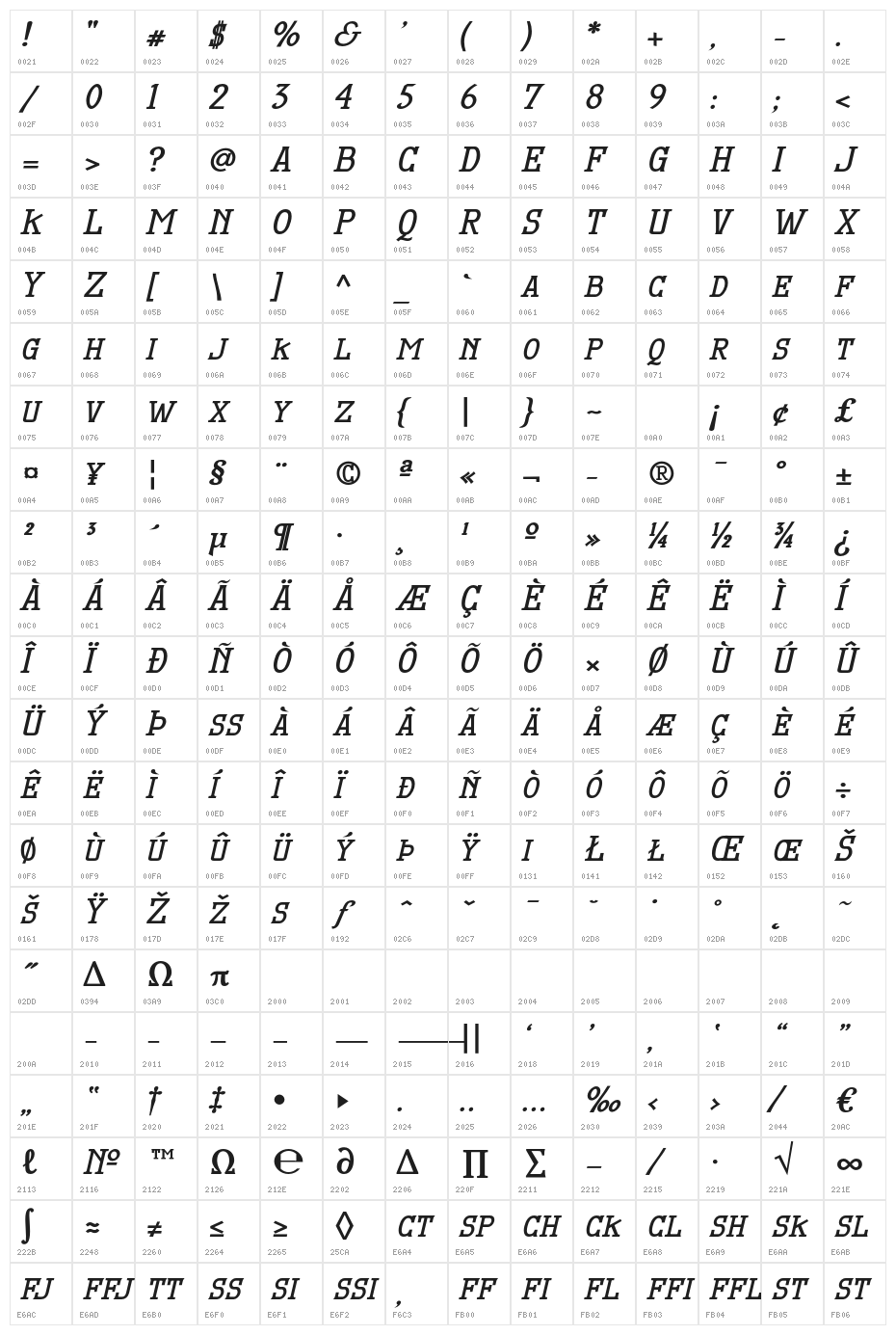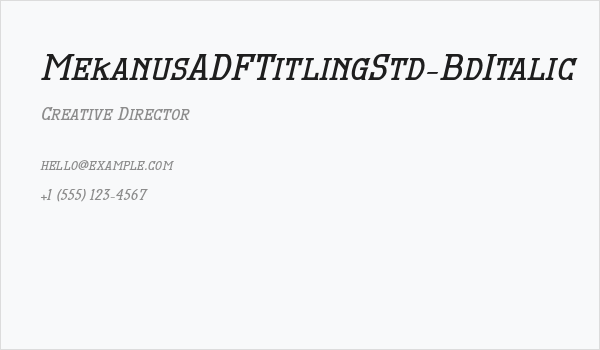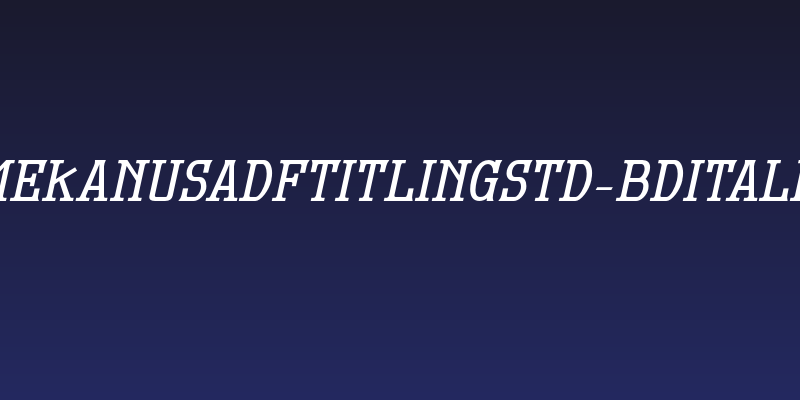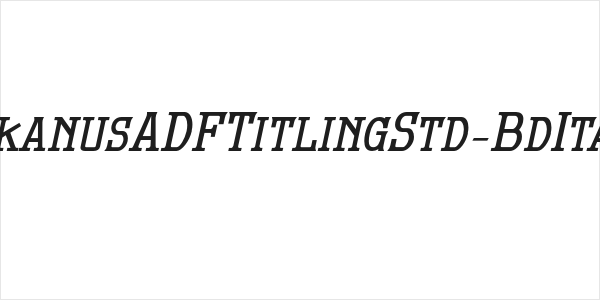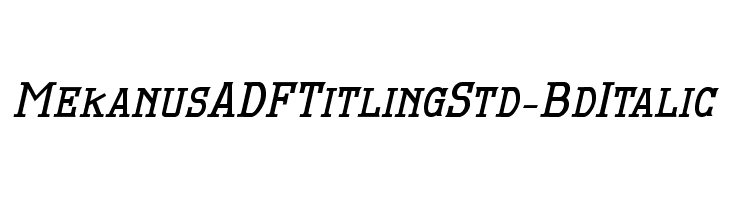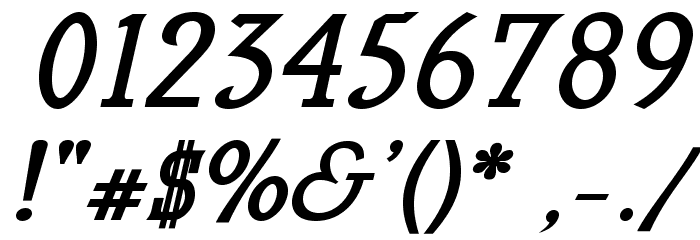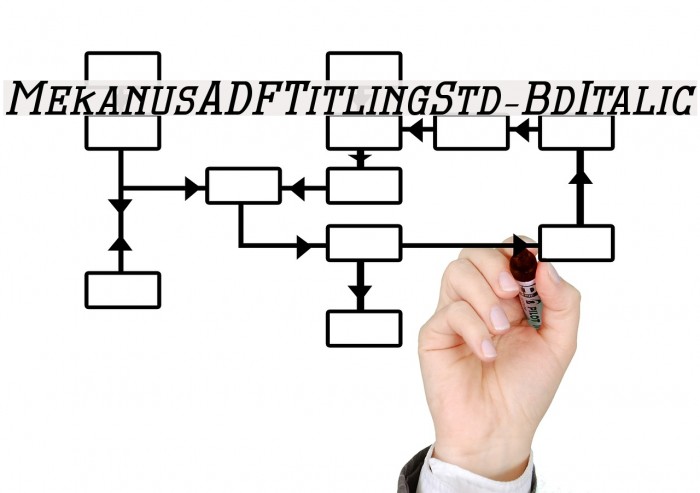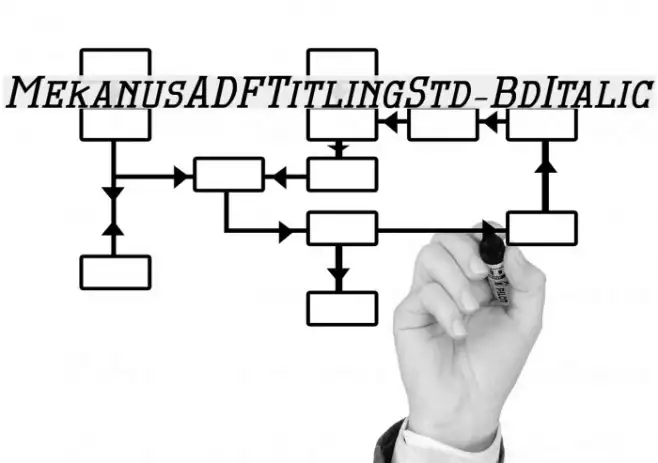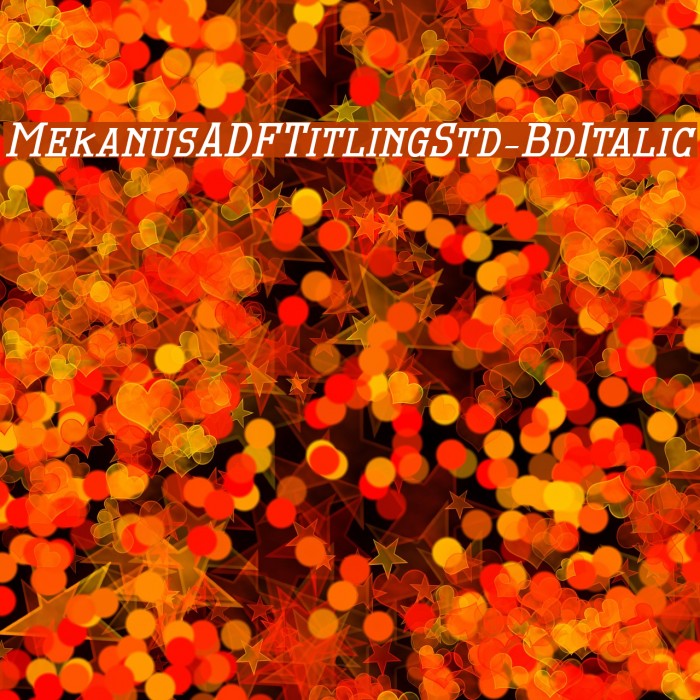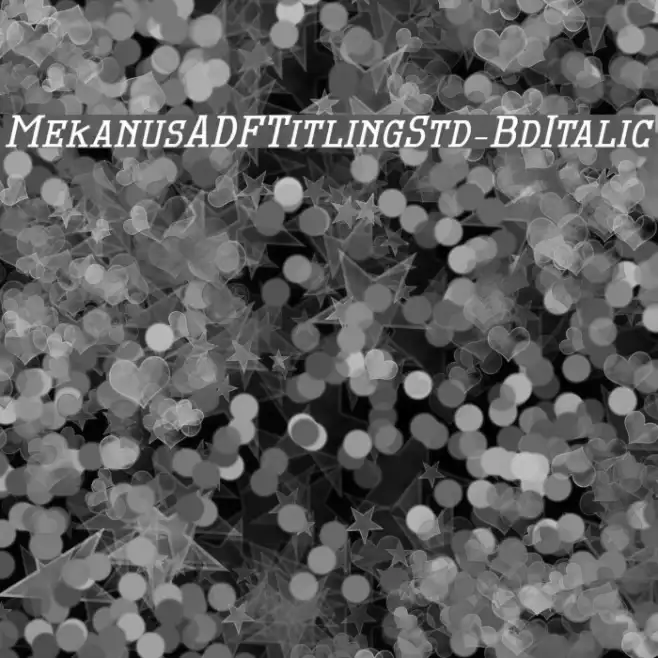
MekanusADFTitlingStd-BdItalic Font
MekanusADFTitlingStd-BdItalic Description
This font features a bold and italicized style, characterized by its strong and dynamic slant. The letters are well-defined with a consistent stroke width, providing a sense of stability and confidence. The uppercase letters are prominent and commanding, while the lowercase letters maintain a cohesive flow. The numerals are clear and easily distinguishable, making them suitable for various applications. Special characters are included, enhancing the font's versatility. The overall design is modern and sleek, making it suitable for impactful headlines and branding.
| Use Case | Headlines, Logos, Branding |
| Proposed Projects | Ideal for branding, advertising, headlines, and editorial design. |